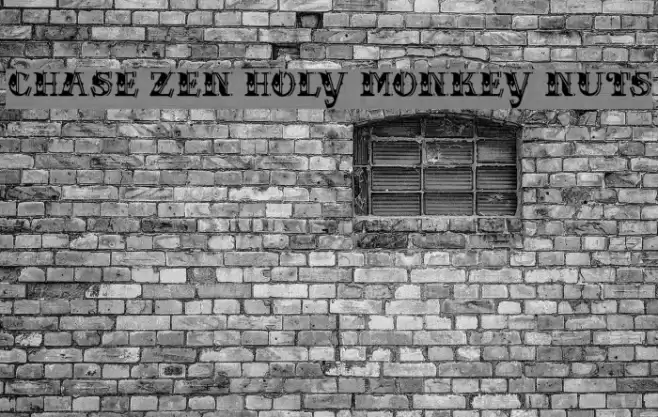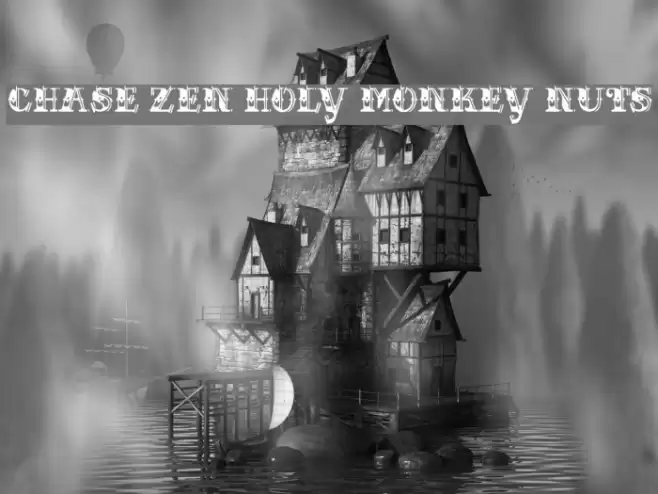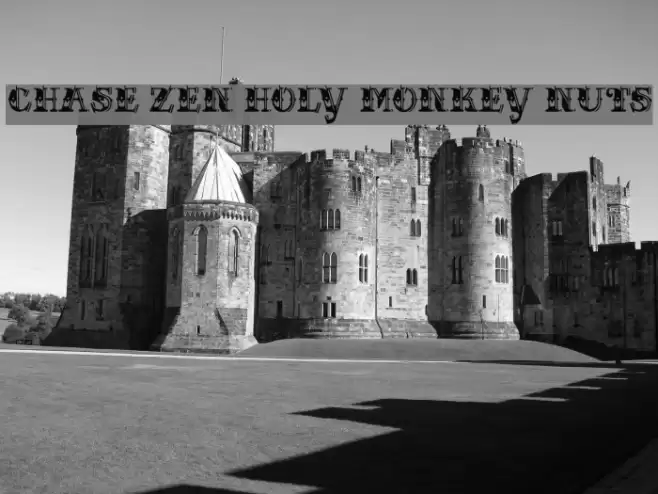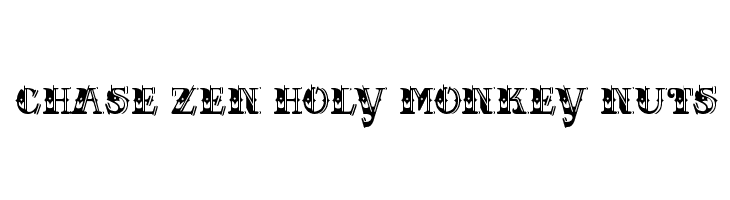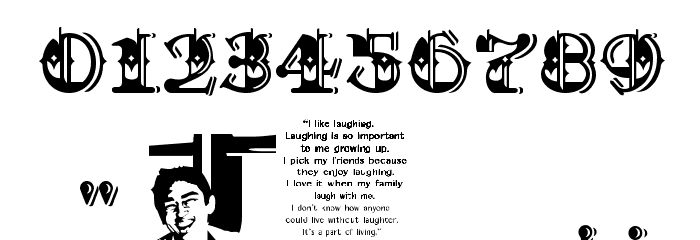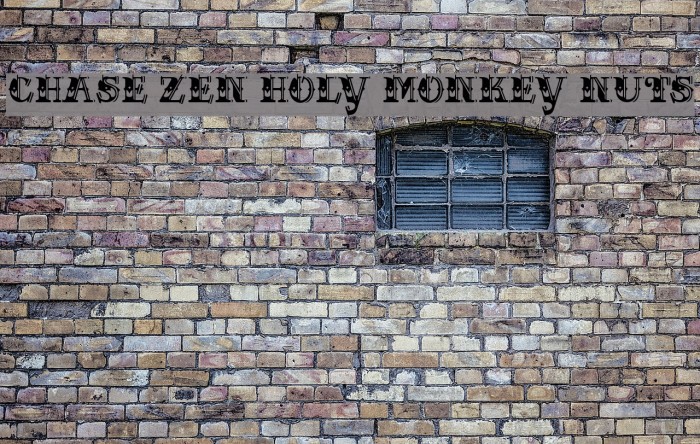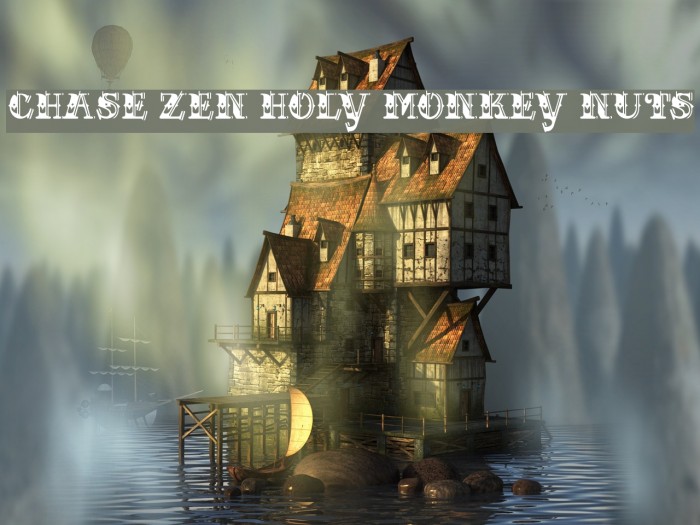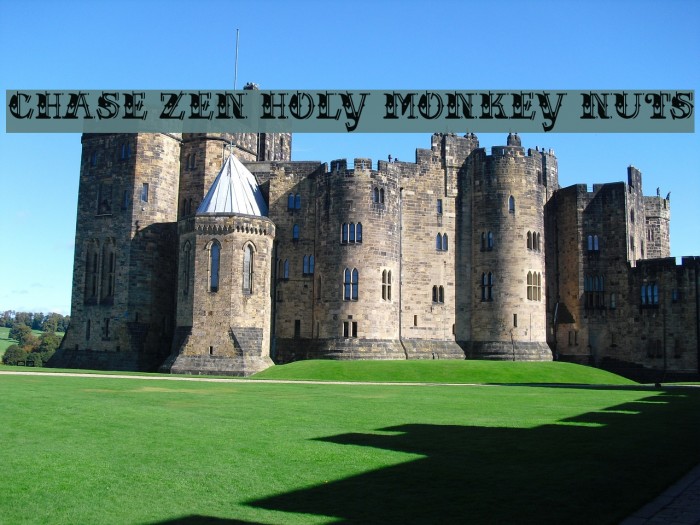
CHASE ZEN HOLY MONKEY NUTS Font
CHASE ZEN HOLY MONKEY NUTS Description
This font features a bold and decorative style with intricate patterns within each character, giving it a unique and eye-catching appearance. The letters are uppercase with a strong presence, characterized by thick strokes and sharp serifs. The design includes playful cutouts and embellishments that add a whimsical touch, making it stand out in any design project. The numbers follow the same decorative theme, ensuring consistency across all characters. This font is ideal for projects that require a bold statement and a touch of creativity.
A bold, decorative font with intricate patterns and playful cutouts from Uncategorized fonts.